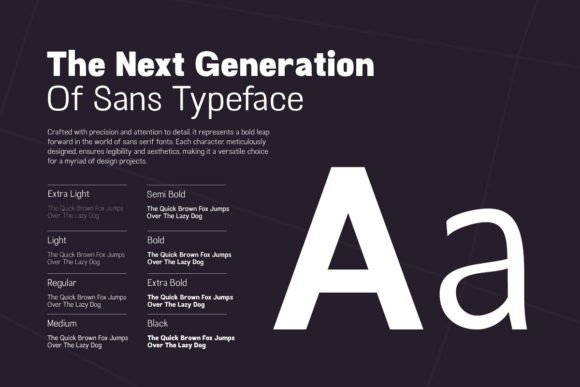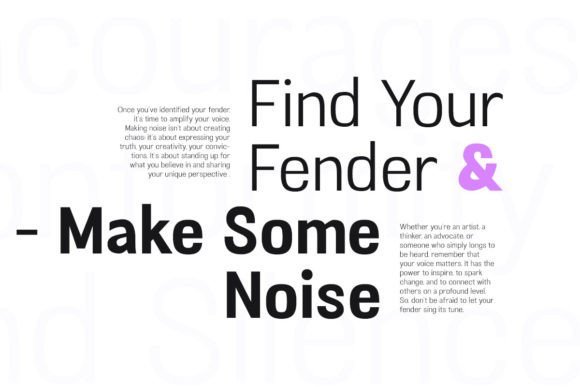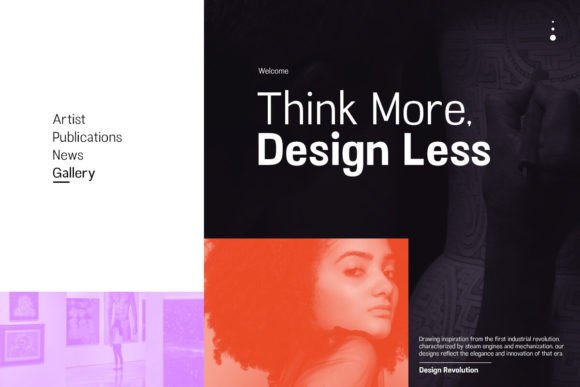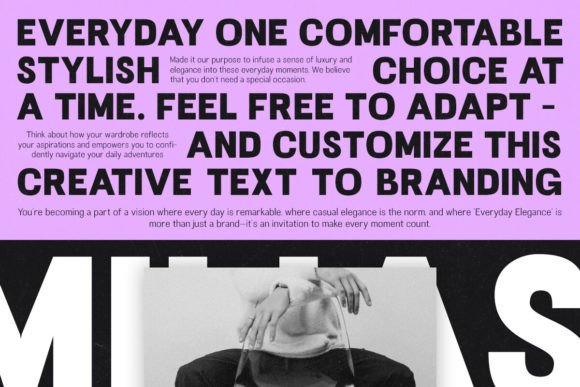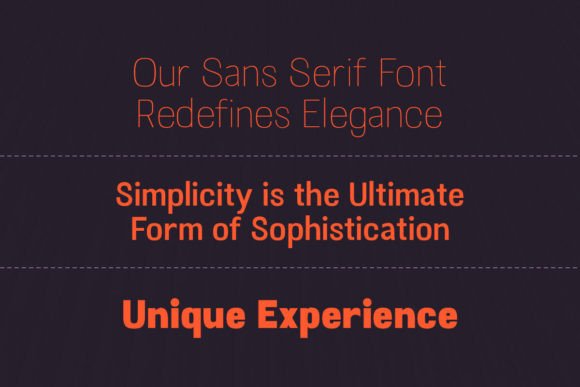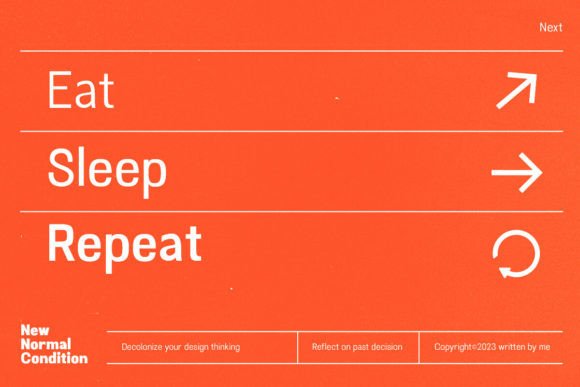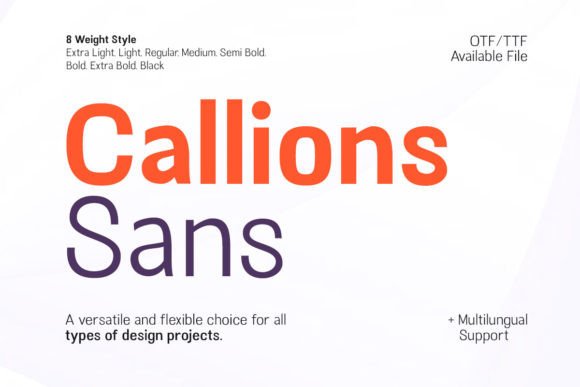
Introducing Callions: The Ultimate Modern Sans Serif Font Family
In the world of typography, a well-designed font can make all the difference in elevating your design to the next level. For designers and crafters looking for a versatile and modern typeface, look no further than Callions, a basic sans serif font family with a contemporary look. In this article, we’ll dive into the features and benefits of Callions, and explore how this font family can enhance your design projects.
A Modern Sans Serif Font Family
Callions is a thoughtfully designed sans serif font family that exudes a sense of minimalism and sophistication. With a focus on clean lines, simple shapes, and a neutral aesthetic, Callions is perfect for designers seeking a modern and versatile typeface. The font family consists of 8 weight styles, ranging from Extra Light to Black, providing a wide range of options for various design applications.
Key Features of Callions
• 8 Weight Styles: Callions offers a comprehensive range of 8 weight styles, from Extra Light to Black, allowing you to choose the perfect weight for your design project.
• Multi-Language Support: This font family supports multiple languages, making it an excellent choice for global design projects.
• Minimalist and Versatile: Callions’ clean and simple design makes it suitable for a wide range of applications, from signage and quotes to branding and more.
• Modern Aesthetic: The font family’s contemporary look and feel ensure that your designs will look fresh and modern.
Use Cases for Callions
Callions is an incredibly versatile font family, making it suitable for various design projects. Here are some use cases to consider:
• Signage: Use Callions for signage projects, such as directional signs, menus, or promotional materials.
• Branding: Create a strong brand identity with Callions, using the font for logos, business cards, or letterheads.
• Quotes and Typography: Add a touch of elegance to your quotes and typography projects with Callions’ clean and simple design.
• Digital Media: Use Callions for digital media, such as website headers, social media graphics, or mobile app interfaces.
Benefits of Using Callions
By choosing Callions for your design projects, you’ll enjoy several benefits, including:
• Consistency: Callions’ consistent design across all weight styles ensures a cohesive look and feel for your projects.
• Legibility: The font family’s clear and simple design ensures excellent legibility, even at smaller font sizes.
• Flexibility: With 8 weight styles and multi-language support, Callions adapts to your design needs.
• Time-Saving: Use Callions across multiple projects, saving you time and effort in selecting and pairing fonts.
In conclusion, Callions is an exceptional sans serif font family that offers a unique blend of minimalism, versatility, and modernity. With its comprehensive range of 8 weight styles, multi-language support, and clean design, Callions is perfect for designers and crafters seeking a reliable and stylish typeface for their projects. Whether you’re working on signage, branding, or digital media, Callions is an excellent choice to elevate your designs to the next level.